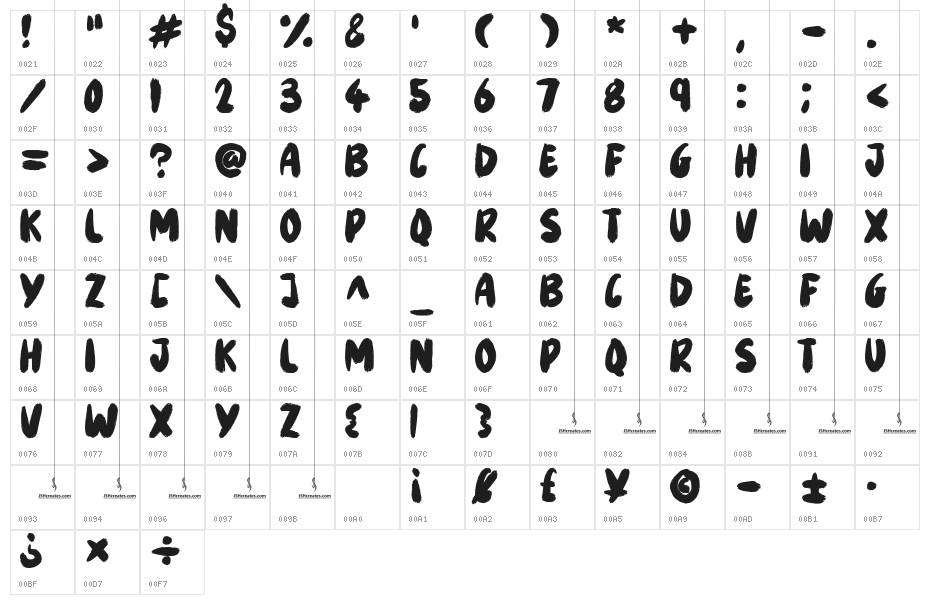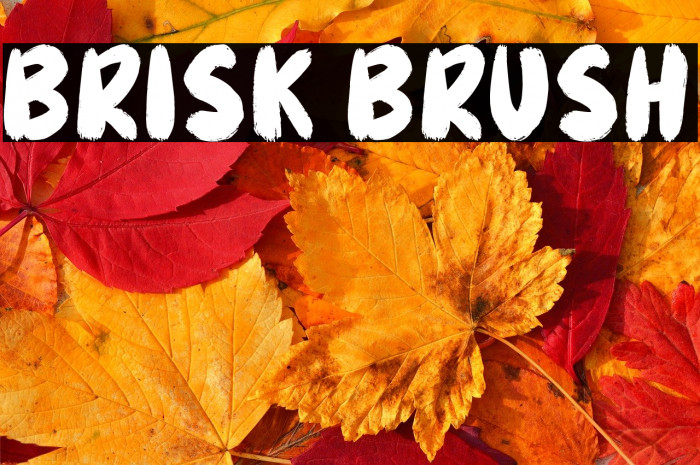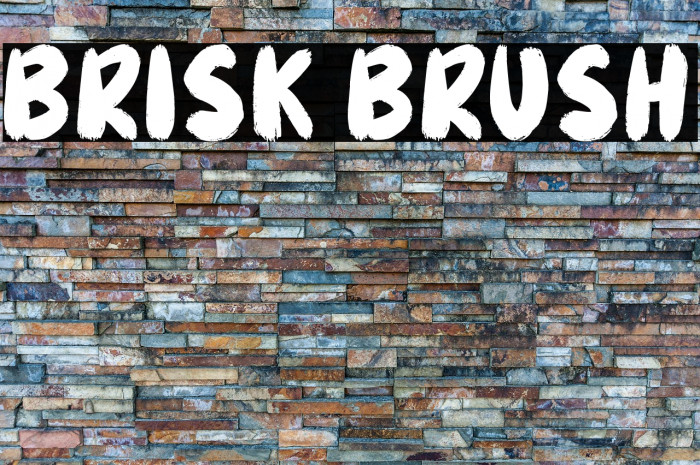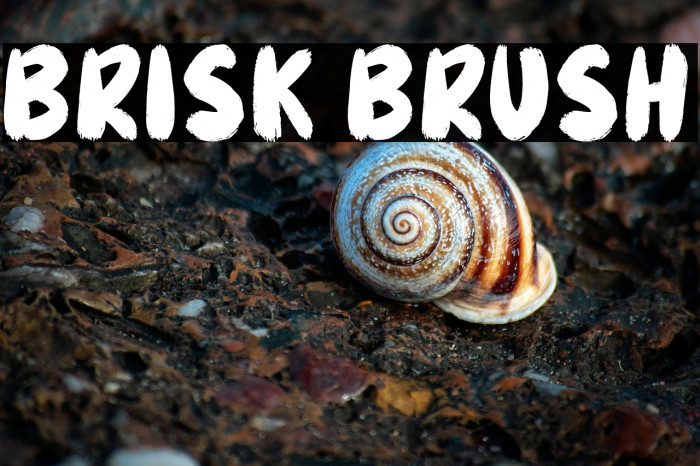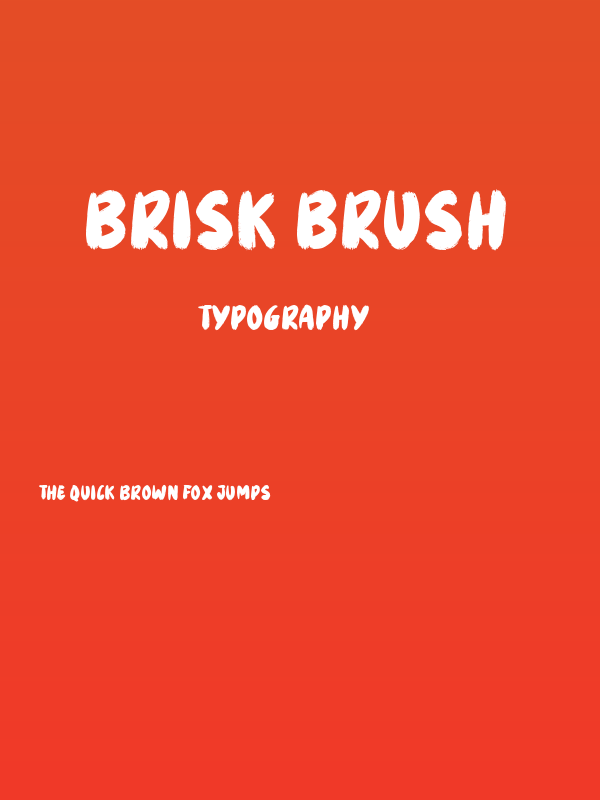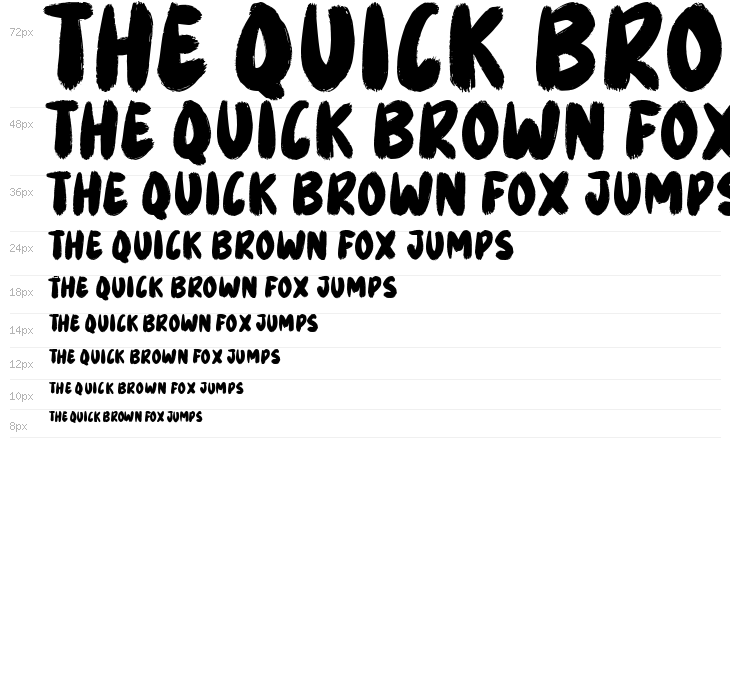
Brisk Brush Font
Brisk Brush Description
This font features a bold, energetic brush style that exudes a sense of dynamism and creativity. The strokes are thick and expressive, with a hand-painted appearance that adds a personal touch to any design. The letters are slightly irregular, giving them a lively and spontaneous feel. This font is perfect for projects that require a strong visual impact and a sense of movement. The uppercase and lowercase letters are consistent in style, maintaining the bold brush effect throughout. Numbers and special characters are equally expressive, ensuring a cohesive look across all elements.
| Proposed Projects | Ideal for posters, branding, packaging, and any creative project that needs a bold, artistic touch. |